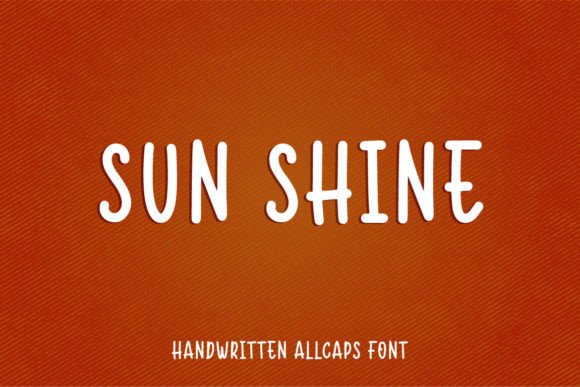
Introducing Sun Shine Font: A Burst of Joy for Your Designs
In a world saturated with digital monotony, Sun Shine Font emerges as a radiant beacon of creativity, inviting you to infuse your designs with warmth and charm. This enchanting script font, meticulously crafted by the talented team at Mightyfire, possesses an innate ability to transform your words into captivating works of art. Its meticulously hand-rendered strokes exude a touch of playfulness, lending a personal touch to every project you undertake.
Sun Shine Font: A Symphony of Aesthetics
Sun Shine Font is not merely a collection of letters; it's an orchestra of visual aesthetics, harmonizing perfectly with a diverse range of design concepts. Its versatility knows no bounds, seamlessly adapting to everything from whimsical invitations to heartfelt greeting cards, from eye-catching social media posts to captivating logos that leave a lasting impression. With Sun Shine Font as your creative ally, the possibilities are infinite, empowering you to weave a tapestry of visual narratives that resonate with your audience.
Sun Shine Font: The Epitome of User-Friendliness
At its core, Sun Shine Font is a font designed for the modern creative, prioritizing ease of use and seamless integration into your workflow. Its meticulously crafted characters are carefully optimized for both digital and print applications, ensuring crisp and vibrant results regardless of your medium. Whether you're a seasoned designer or just starting your creative journey, Sun Shine Font welcomes you with open arms, inviting you to explore the depths of your imagination and bring your design visions to life.
Sun Shine Font: A Font That Touches Hearts
Beyond its aesthetic appeal and functionality, Sun Shine Font possesses an intangible quality that sets it apart from the ordinary. It has the uncanny ability to evoke emotions, to touch the hearts of those who behold it. Its cheerful and optimistic demeanor shines through in every letterform, spreading joy and positivity wherever it's used. Whether you're creating designs for personal projects or commercial ventures, Sun Shine Font is your secret weapon for captivating your audience and leaving an enduring impression.